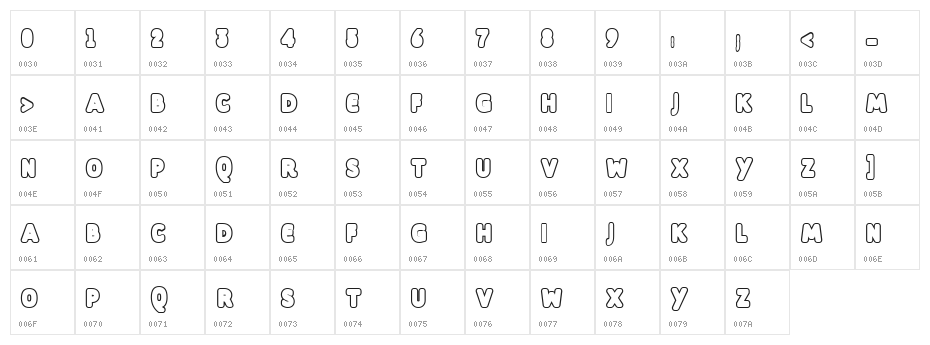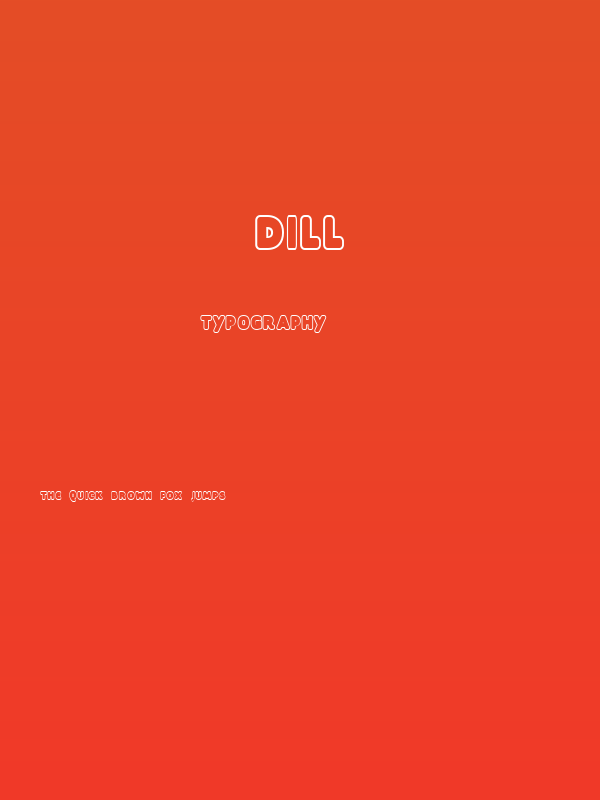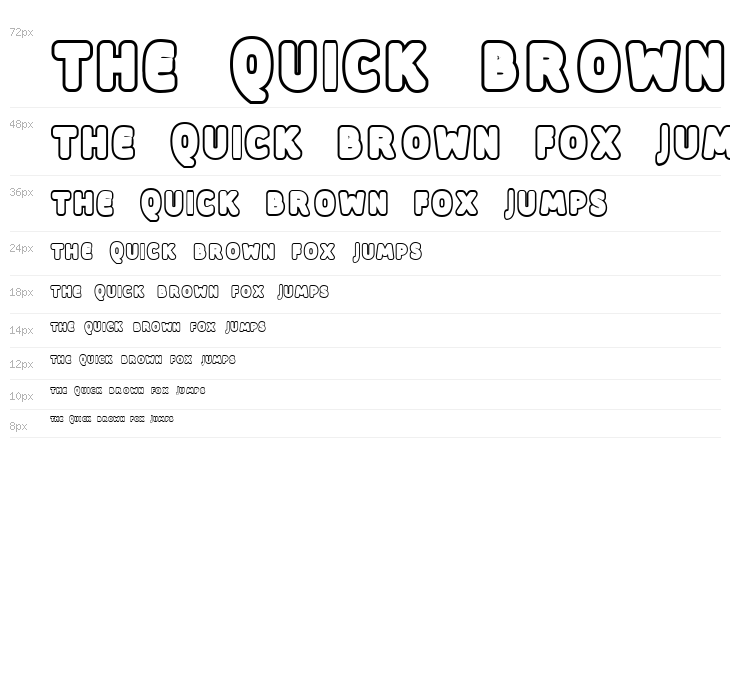
Dill Font
Dill Description
This font features bold, rounded characters with a playful and friendly appearance. Each letter is outlined with a thick black border, creating a bubble-like effect that enhances its visibility and impact. The characters are uniformly designed, maintaining a consistent height and width, which contributes to a balanced and cohesive look. The font's style is reminiscent of comic or cartoon lettering, making it ideal for projects that require a fun and engaging aesthetic. The numbers and uppercase letters are equally bold and rounded, ensuring legibility and a harmonious visual flow.
Overall StylePlayful, Cartoonish
Use CaseHeadlines, Logos, Posters
Proposed ProjectsIdeal for children's books, comic strips, playful branding, and eye-catching headlines.